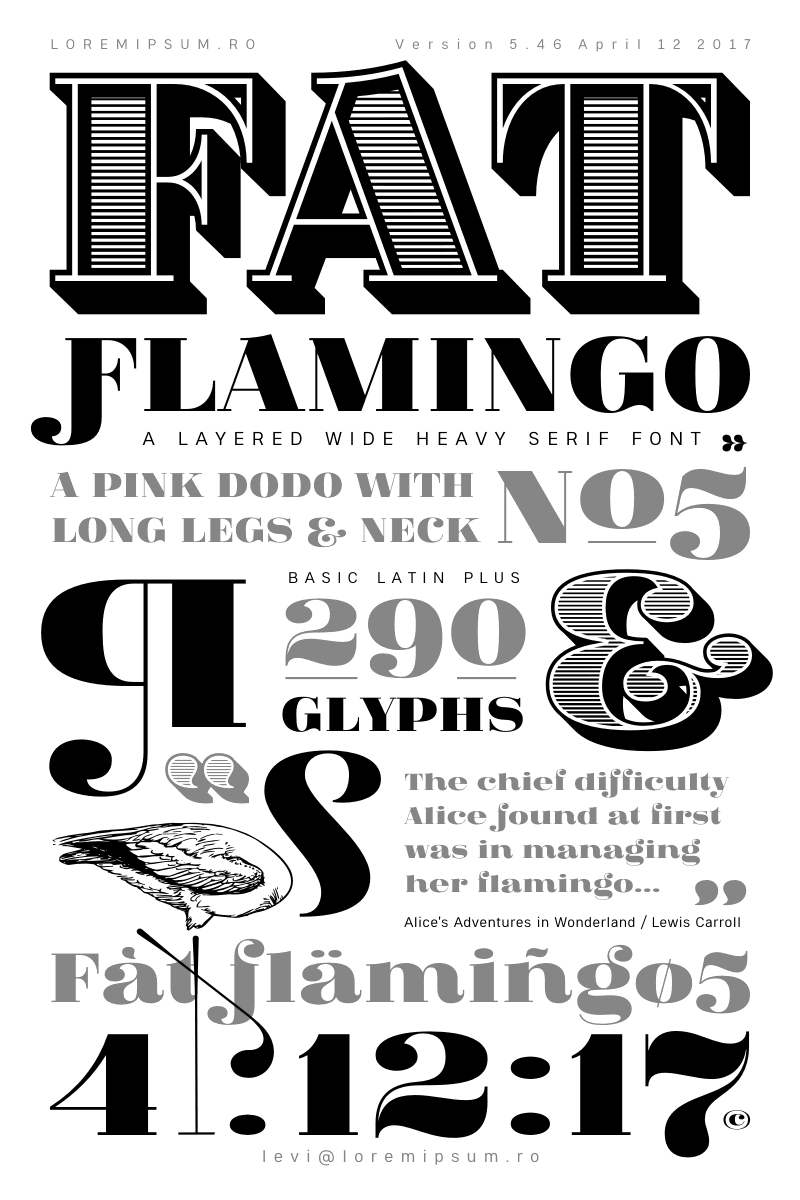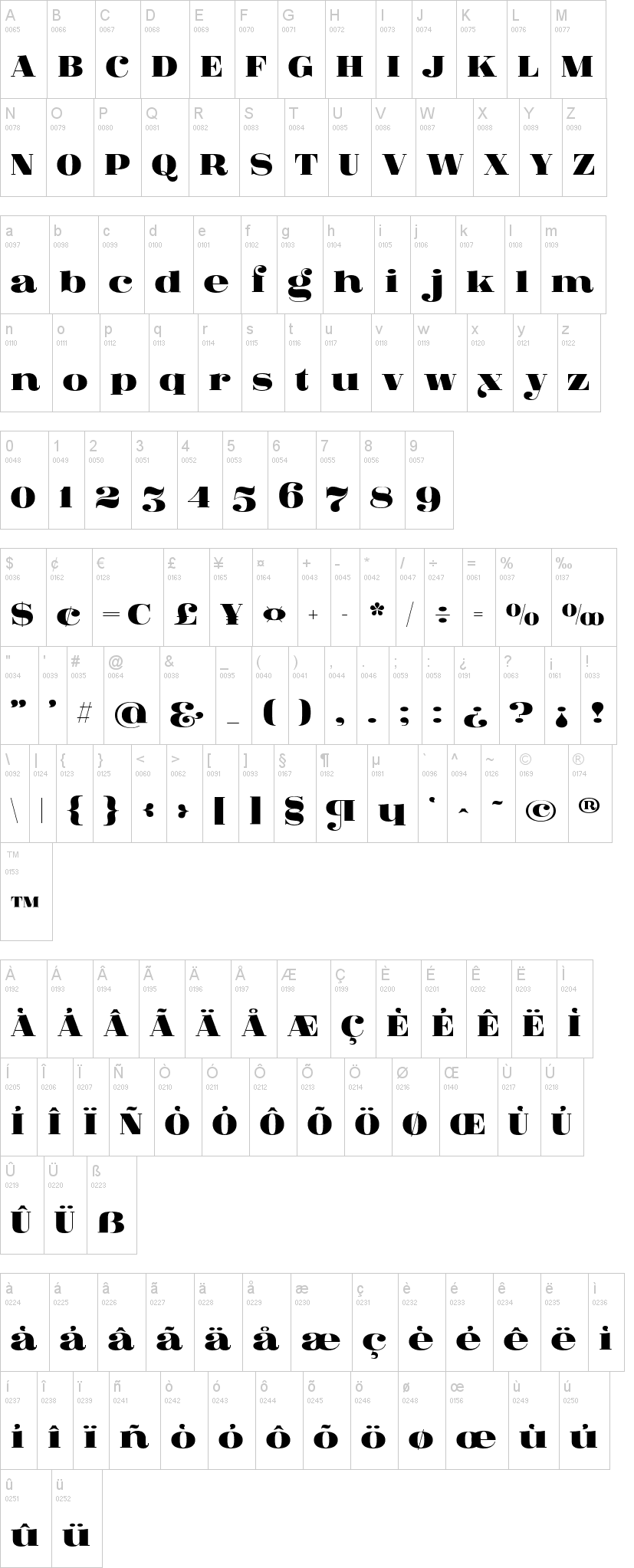
Fat Flamingo5 Overlay.ttfFat Flamingo5 Side Fill.ttfFat Flamingo5 Shadow Fill.ttfFat Flamingo5 Lightbox.ttfFat Flamingo5 Side.ttfFat Flamingo5 Shadow.ttfFat Flamingo5 Woodcut Black.ttfFat Flamingo5 Woodcut.ttfFat Flamingo5 Woodcut Inner.ttfFat Flamingo5 Outline.ttfFat Flamingo5 Stripes.ttfNote of the authorA heavy alternative to serif headlines with a touch of pink.